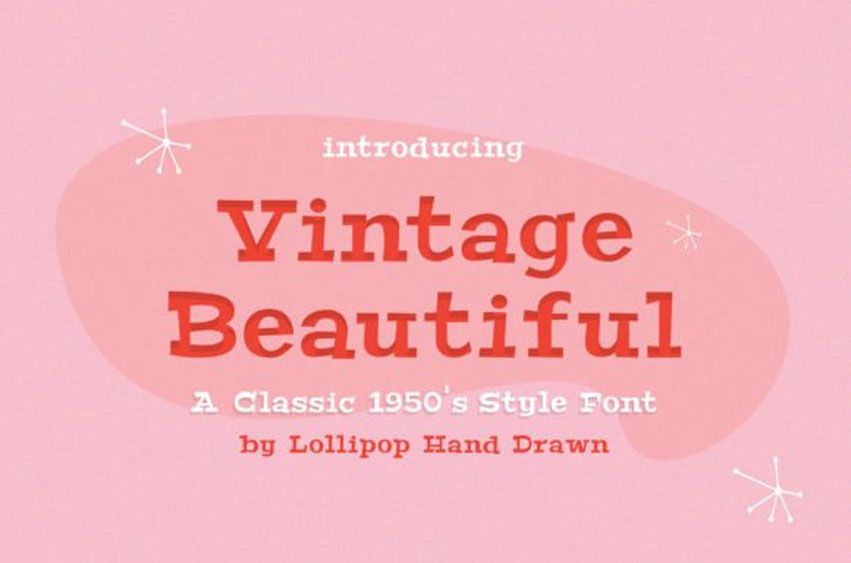
Vintage Beautiful Font
Vintage Beautiful Font is a cool, retro-style serif font. Its natural and unique style makes it incredibly fitting to a large pool of designs.